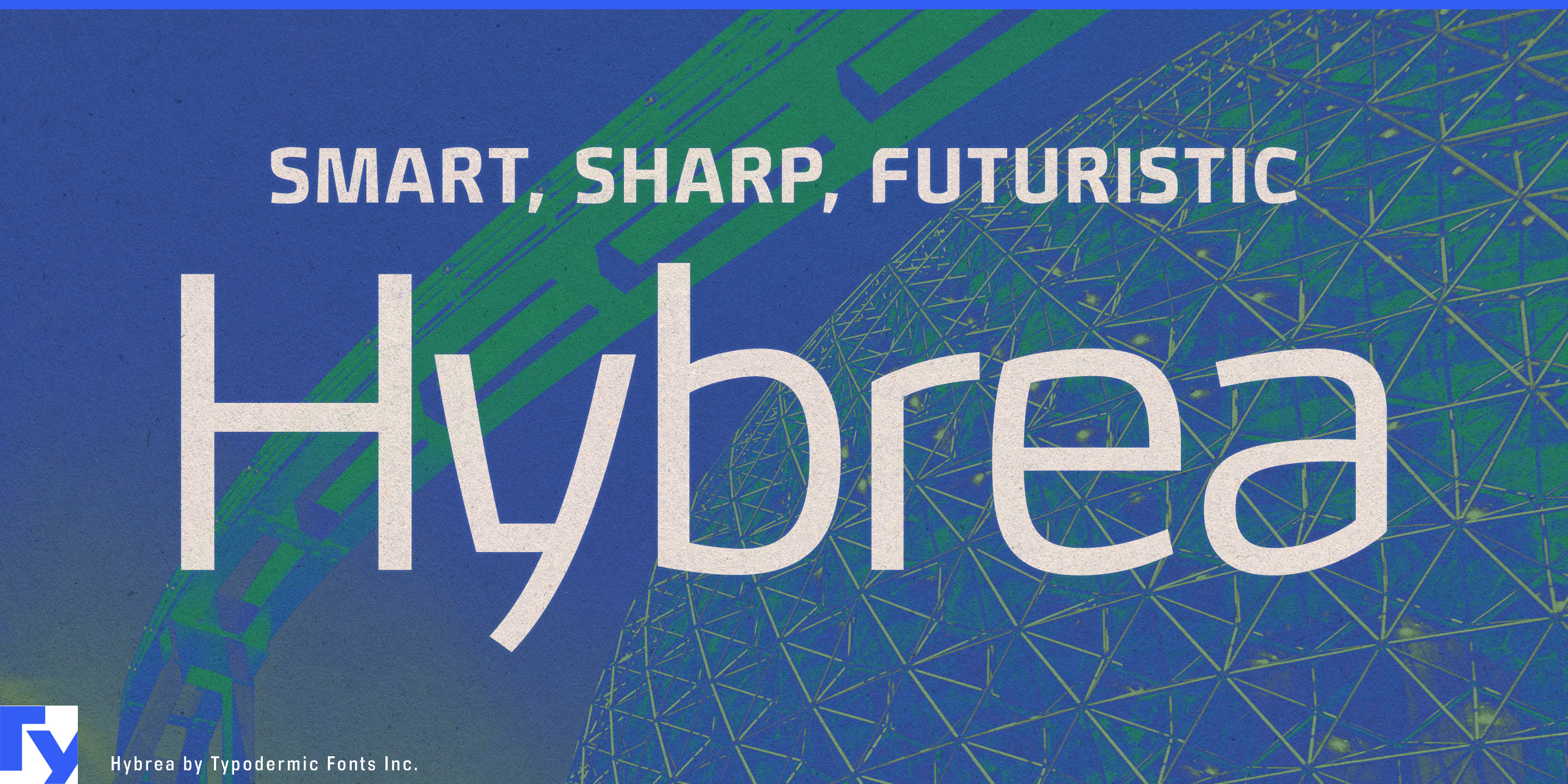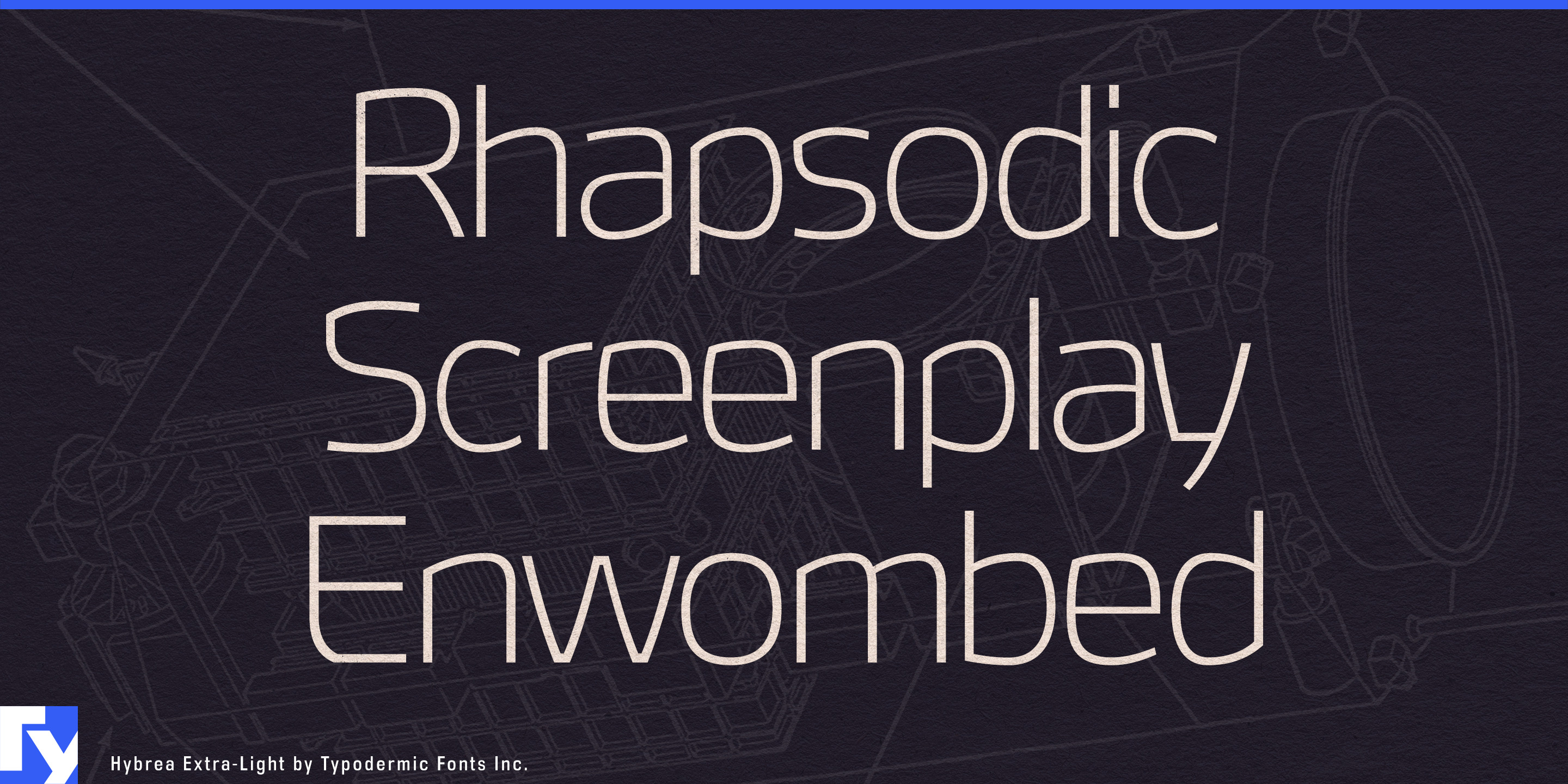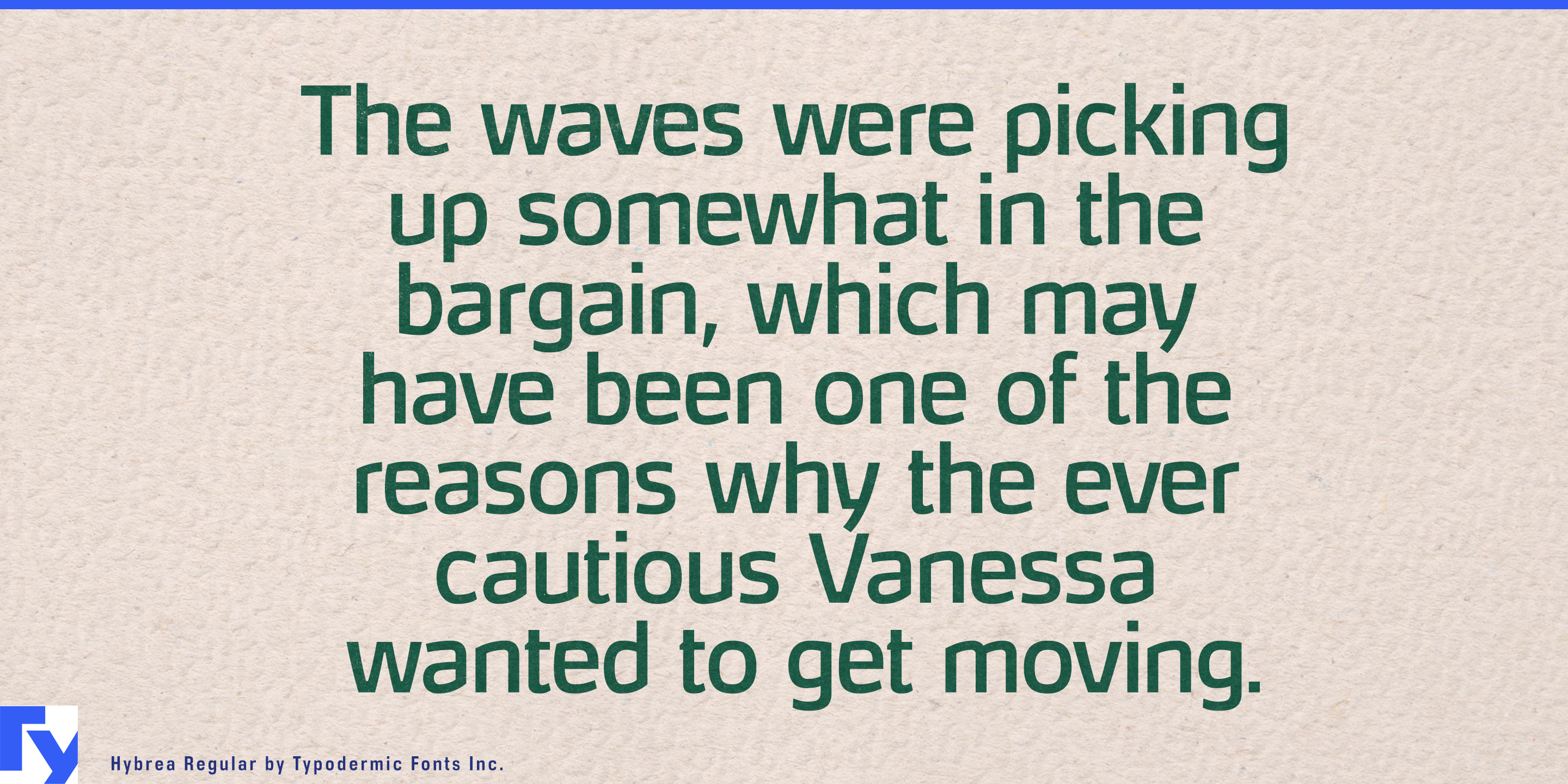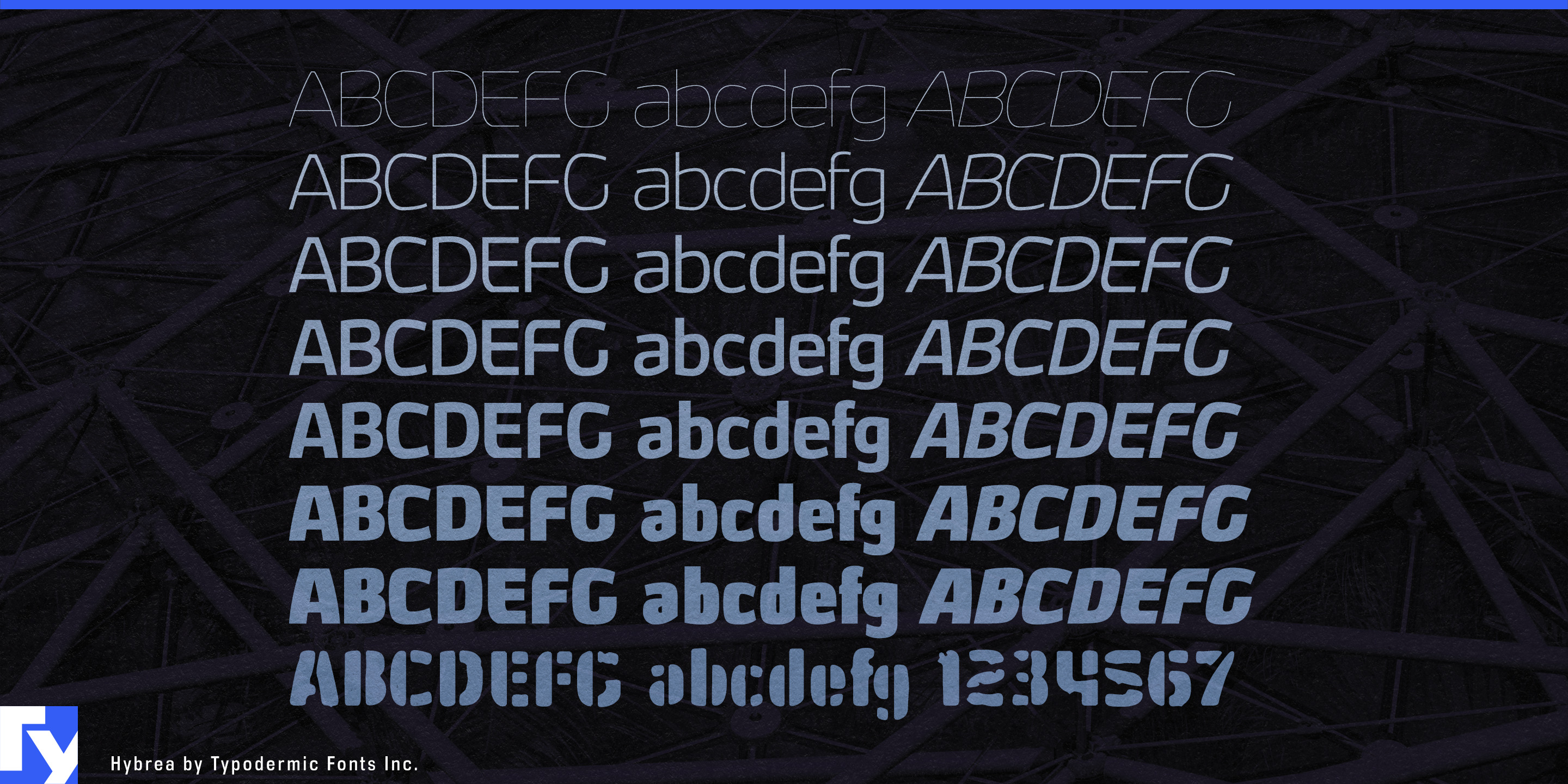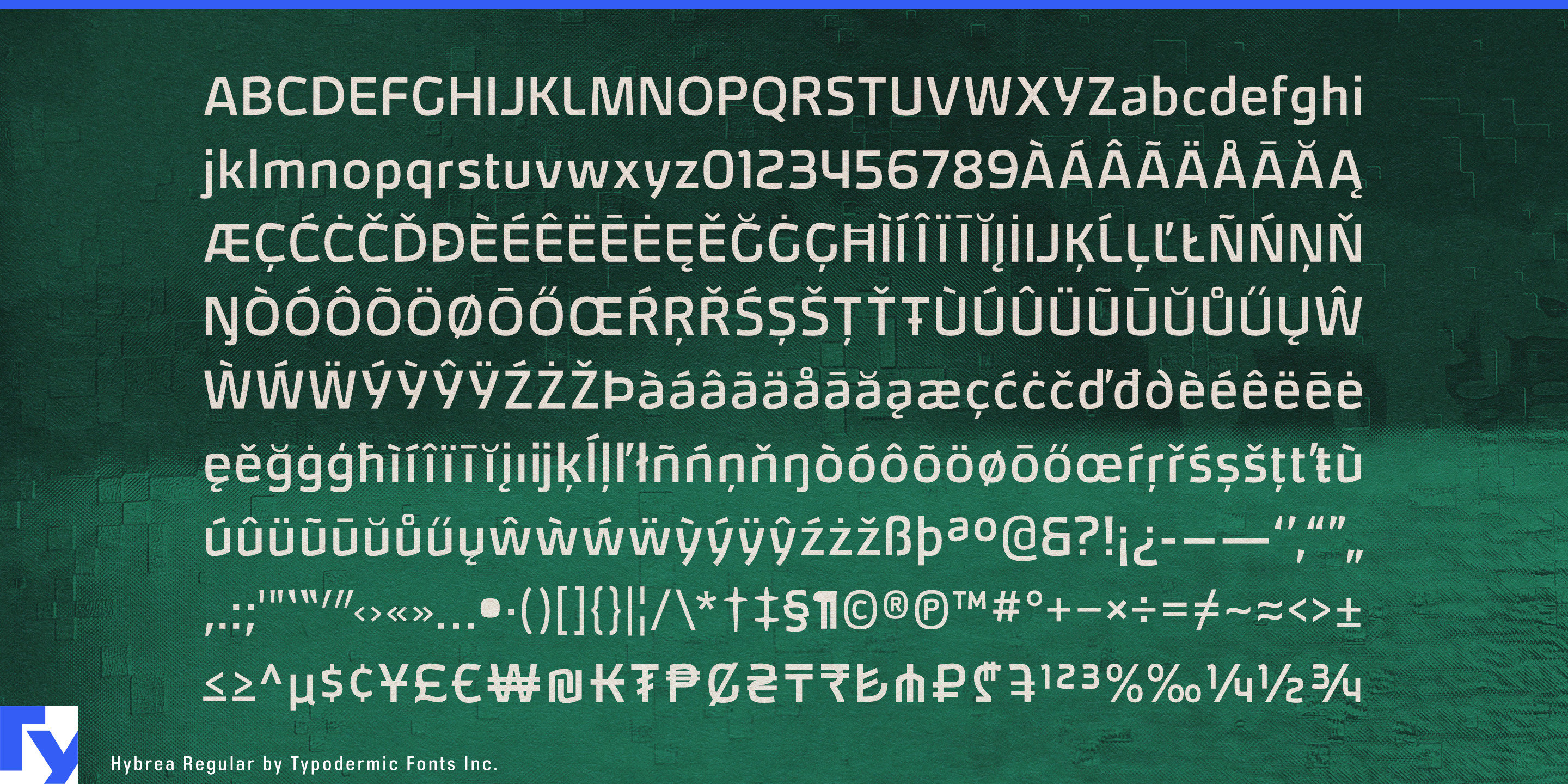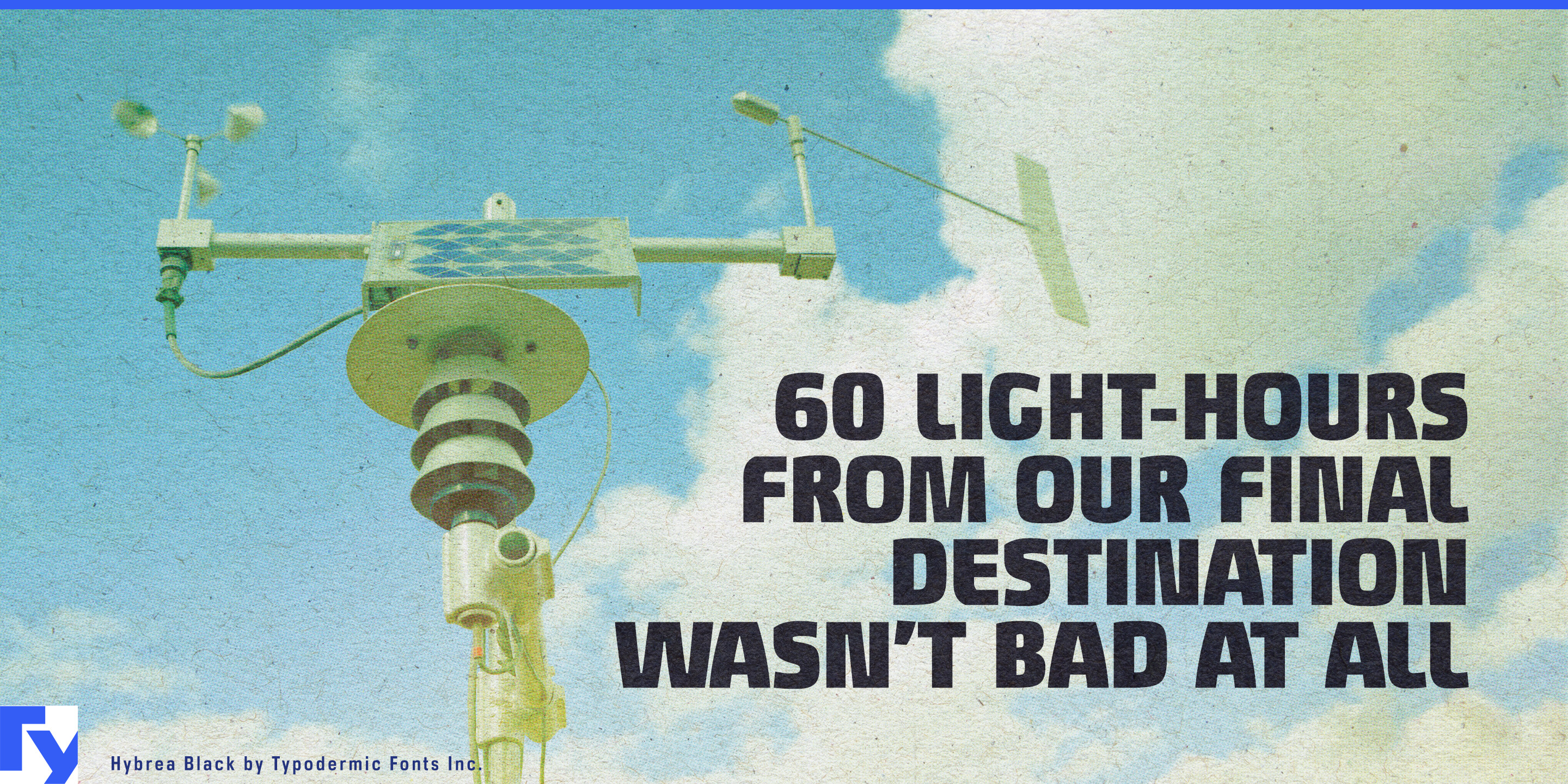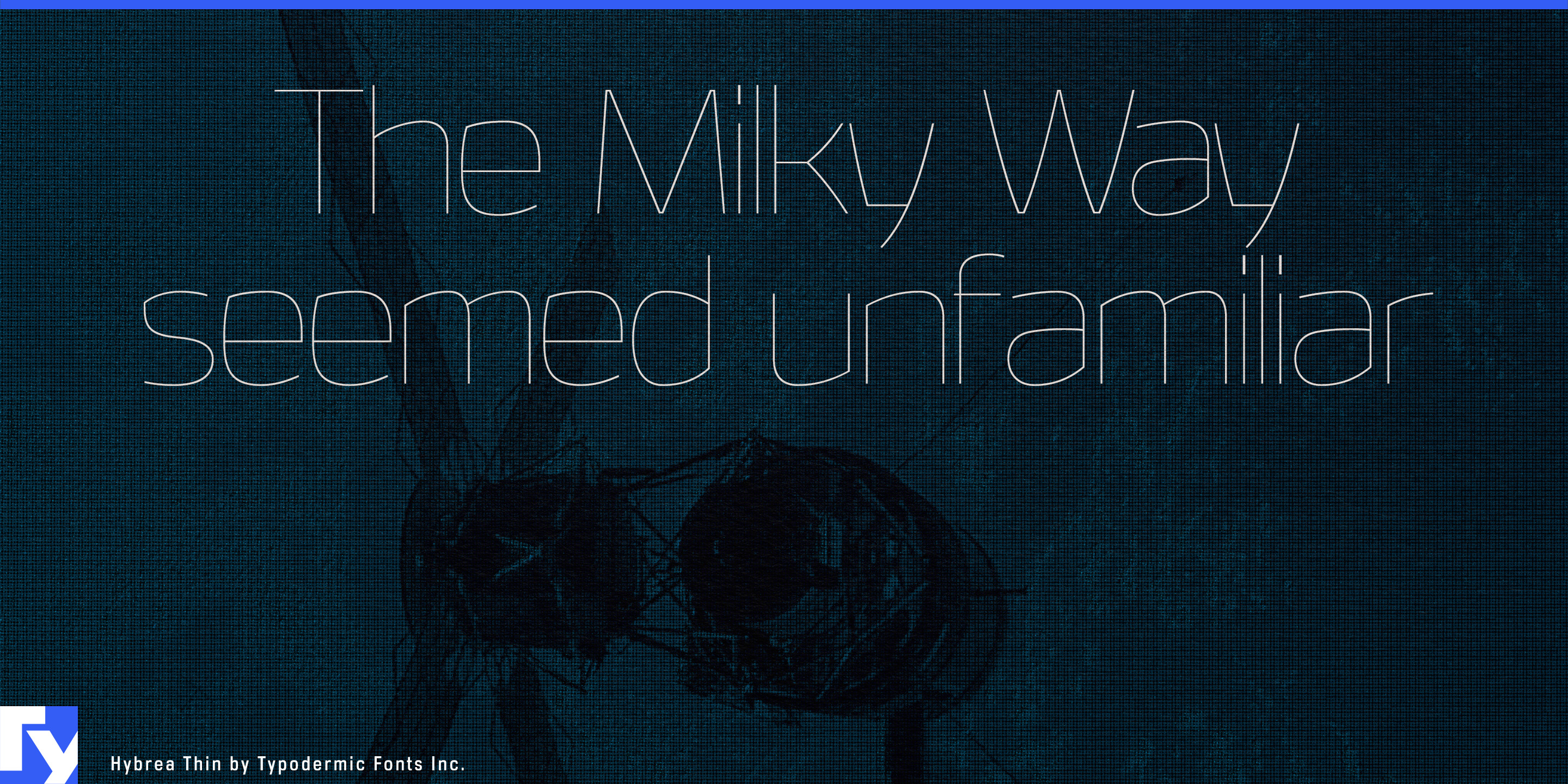
Hybrea is a neoteric sans-serif typeface inspired by automobile and aerospace industrial design. Lines bend unexpectedly, giving your phrases a sense of originality and high-tech wonderment. Hybrea comes in seven clean weights, italics and one greasy stencil weight. Most Latin-based European writing systems are supported, including the following languages. Afaan Oromo, Afar, Afrikaans, Albanian, Alsatian, Aromanian, Aymara, Bashkir (Latin), Basque, Belarusian (Latin), Bemba, Bikol, Bosnian, Breton, Cape Verdean, Creole, Catalan, Cebuano, Chamorro, Chavacano, Chichewa, Crimean Tatar (Latin), Croatian, Czech, Danish, Dawan, Dholuo, Dutch, English, Estonian, Faroese, Fijian, Filipino, Finnish, French, Frisian, Friulian, Gagauz (Latin), Galician, Ganda, Genoese, German, Greenlandic, Guadeloupean Creole, Haitian Creole, Hawaiian, Hiligaynon, Hungarian, Icelandic, Ilocano, Indonesian, Irish, Italian, Jamaican, Kaqchikel, Karakalpak (Latin), Kashubian, Kikongo, Kinyarwanda, Kirundi, Kurdish (Latin), Latvian, Lithuanian, Lombard, Low Saxon, Luxembourgish, Maasai, Makhuwa, Malay, Maltese, Māori, Moldovan, Montenegrin, Ndebele, Neapolitan, Norwegian, Novial, Occitan, Ossetian (Latin), Papiamento, Piedmontese, Polish, Portuguese, Quechua, Rarotongan, Romanian, Romansh, Sami, Sango, Saramaccan, Sardinian, Scottish Gaelic, Serbian (Latin), Shona, Sicilian, Silesian, Slovak, Slovenian, Somali, Sorbian, Sotho, Spanish, Swahili, Swazi, Swedish, Tagalog, Tahitian, Tetum, Tongan, Tshiluba, Tsonga, Tswana, Tumbuka, Turkish, Turkmen (Latin), Tuvaluan, Uzbek (Latin), Venetian, Vepsian, Võro, Walloon, Waray-Waray, Wayuu, Welsh, Wolof, Xhosa, Yapese, Zapotec Zulu and Zuni.